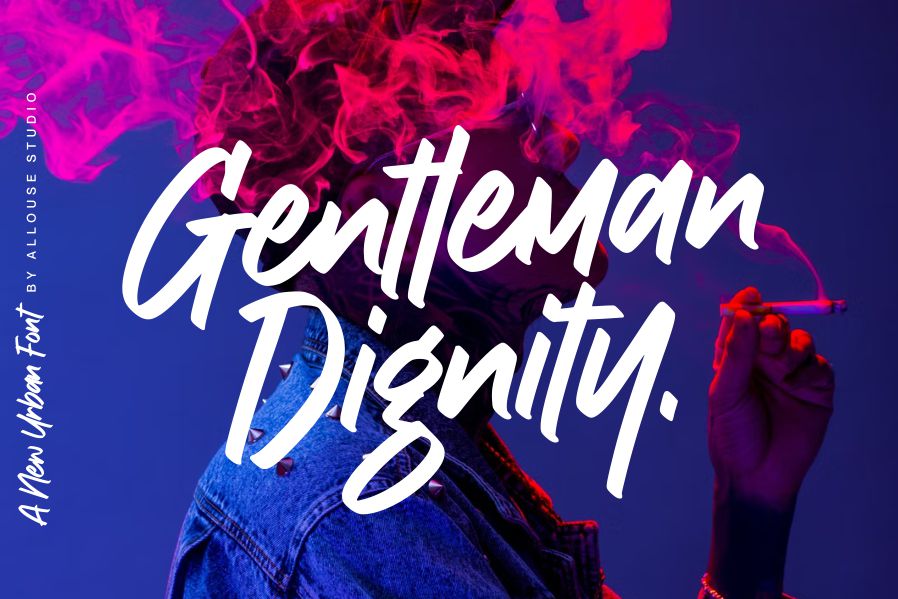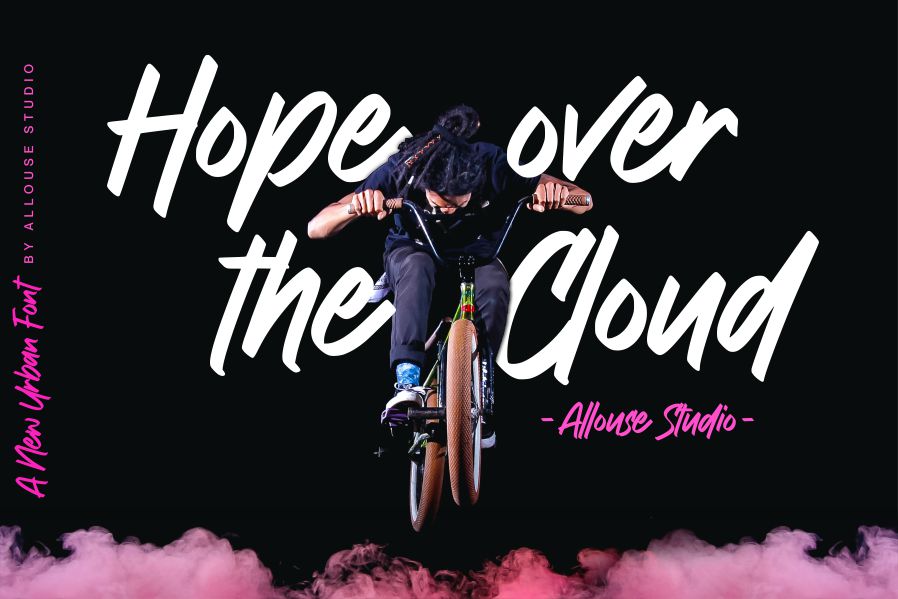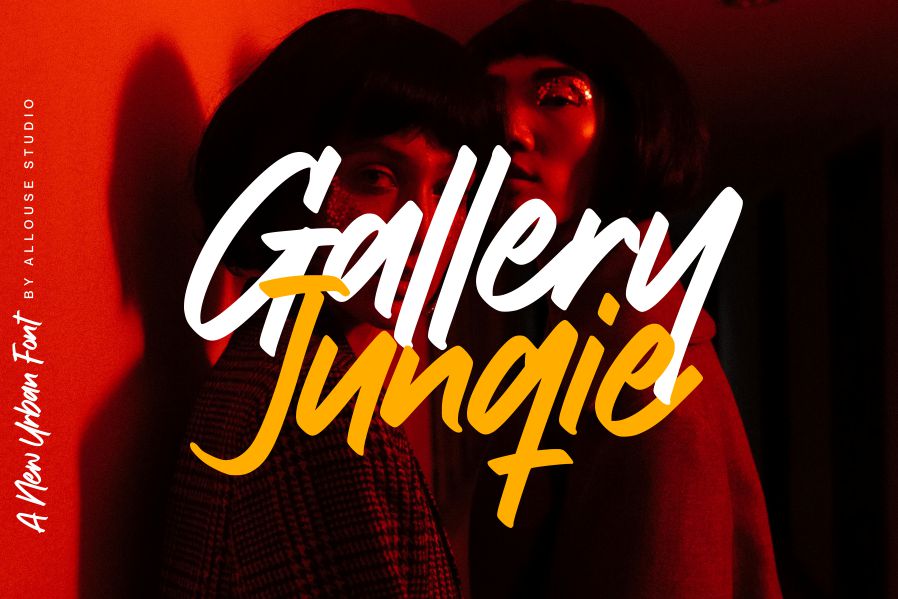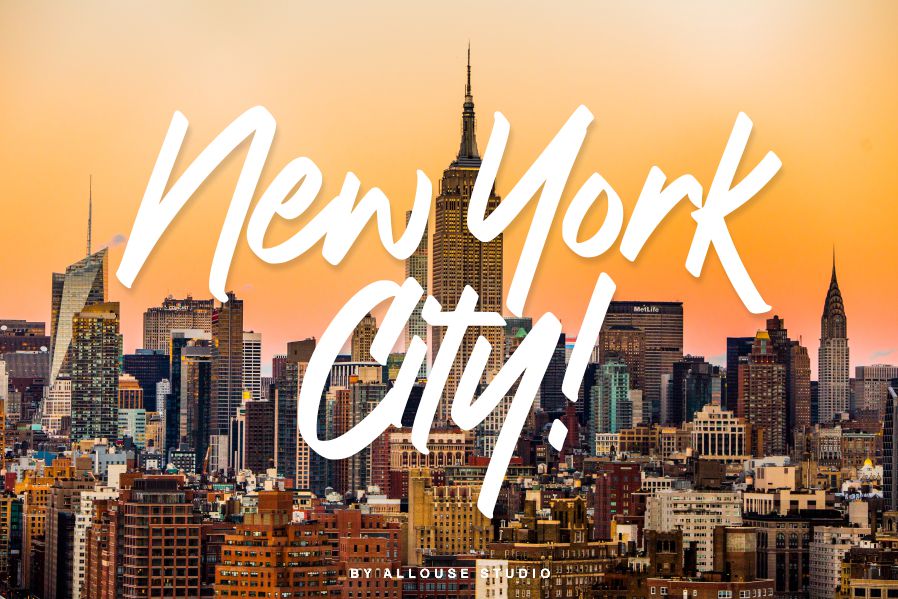
Originthink Font
Originthink Brush Font
It’s a gorgeous and trendy looking handwritten font. Whether you use it for cartoon related designs, children games or just any creation that requires a lovely touch, this font will be an amazing choice.
Allouse.Studio